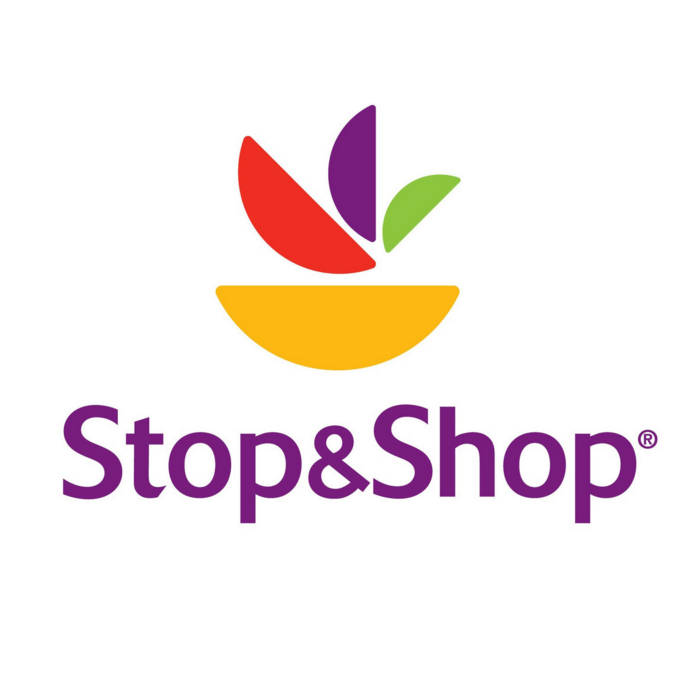
Stop & Shop Font
Fonts in UseStop&Shop is a supermarket chain owned by Ahold Delhaize, with locations primarily in the northeastern United States. It was founded in 1914 in Somerville, Massachusetts.
The logo of the company uses a typeface that resembles Delta Book. Delta is a humanist sans serif font created by Gustav Jaeger in 1983. Further information about Delta is available here.